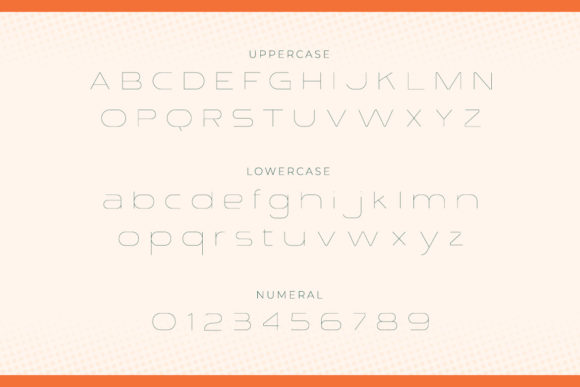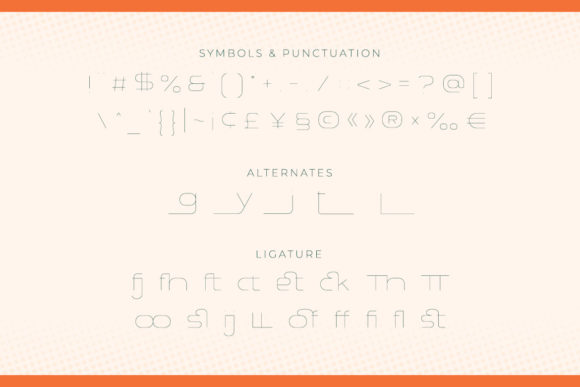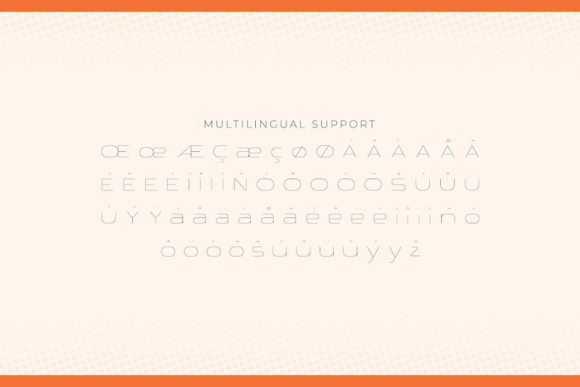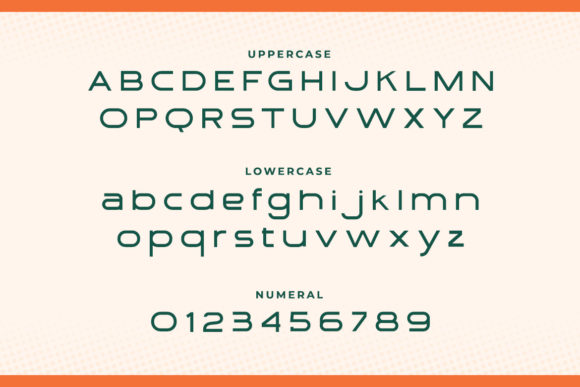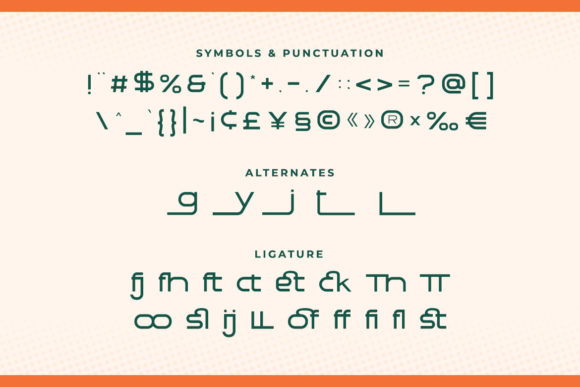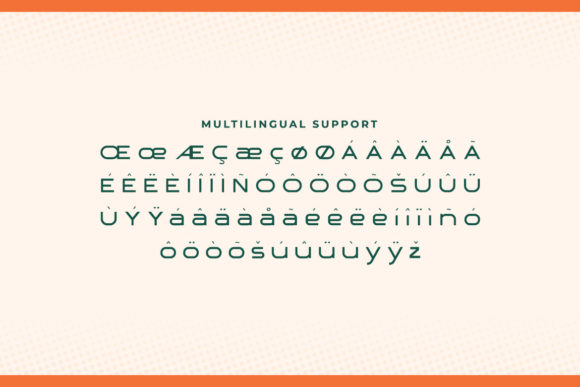
Introduction to Modeon Font Font
Fonts play a crucial role in design, and the Modeon Font font is a typeface that brings both character and versatility to any project. Whether you’re working on a branding project, a website, or a print design, the Modeon Font font offers a unique style that can elevate your work.
Modeon is a stylish and versatile sans serif font family capable of matching all your design needs.
This typeface is suitable for young, passionate designs such as logos, branding, t-shirts, or more .
Key Features of Modeon Font Font
Why Choose Modeon Font Font?
The Modeon Font font is more than just a typeface – it’s a design tool that helps you communicate your message with style and clarity. Its unique character set and versatile design make it suitable for a wide range of applications, from elegant invitations to bold headlines.
With its carefully crafted letterforms and balanced proportions, the Modeon Font font ensures readability and visual appeal across all mediums.
What makes Modeon Font font special?
The Modeon Font font stands out with its unique design, exceptional readability, and versatility across various design applications.